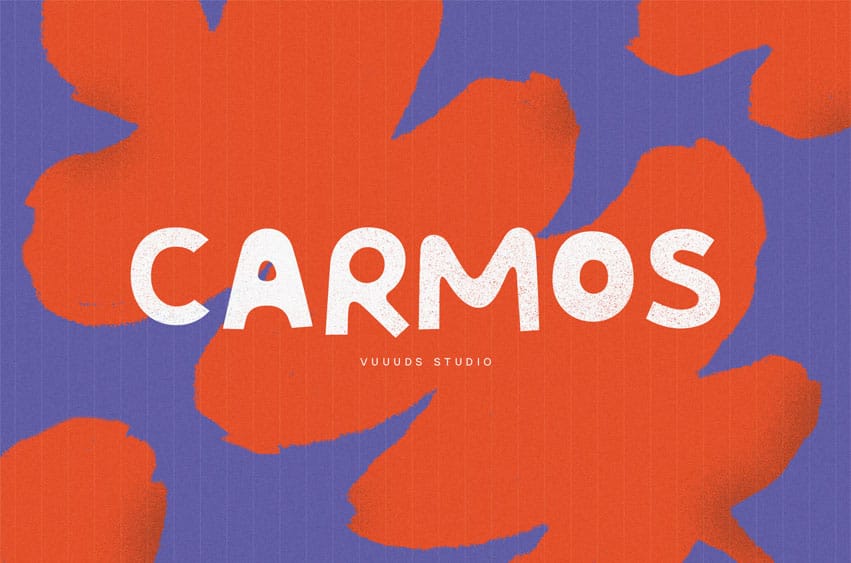
Carmos Font is a modern, casual sans-serif font; every single letter has been uniquely crafted. This font includes beautiful alternate glyphs. You can access the alternate glyph via Font Book (Mac user) or Windows Character Map (Windows user).
Foreign languages support: ÀÁÂÃÄÅÆÇÈÉÊËÌÍÎÏÐÑÒÓÔÕÖØÙÚÛÜŸÝ àáâãäåæçèéêëìíîïðñòóôõöøùúûüýÿ ߀£¥©®™